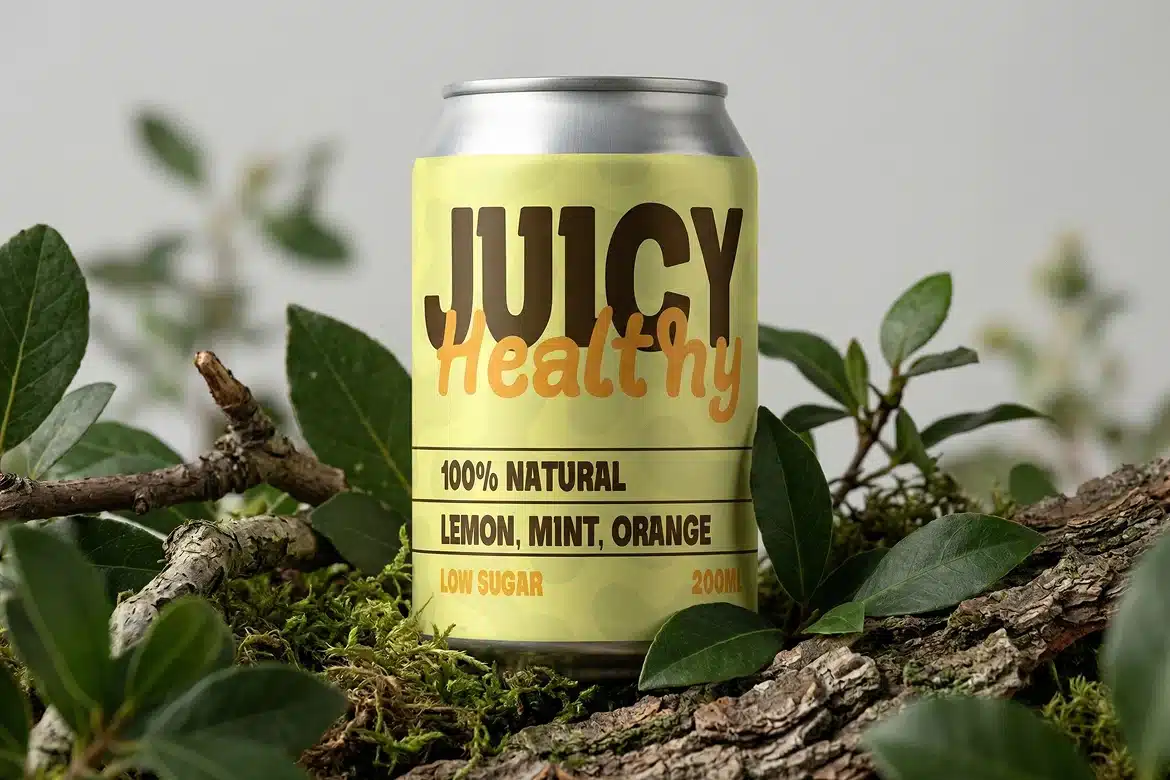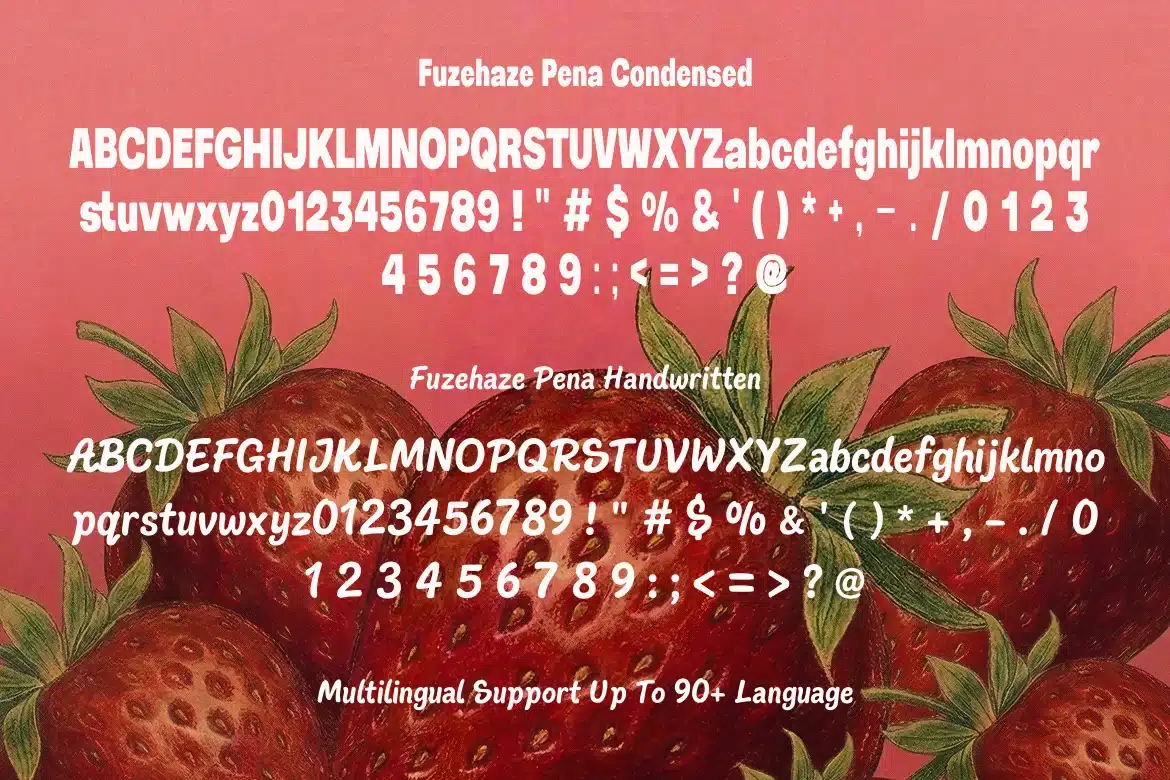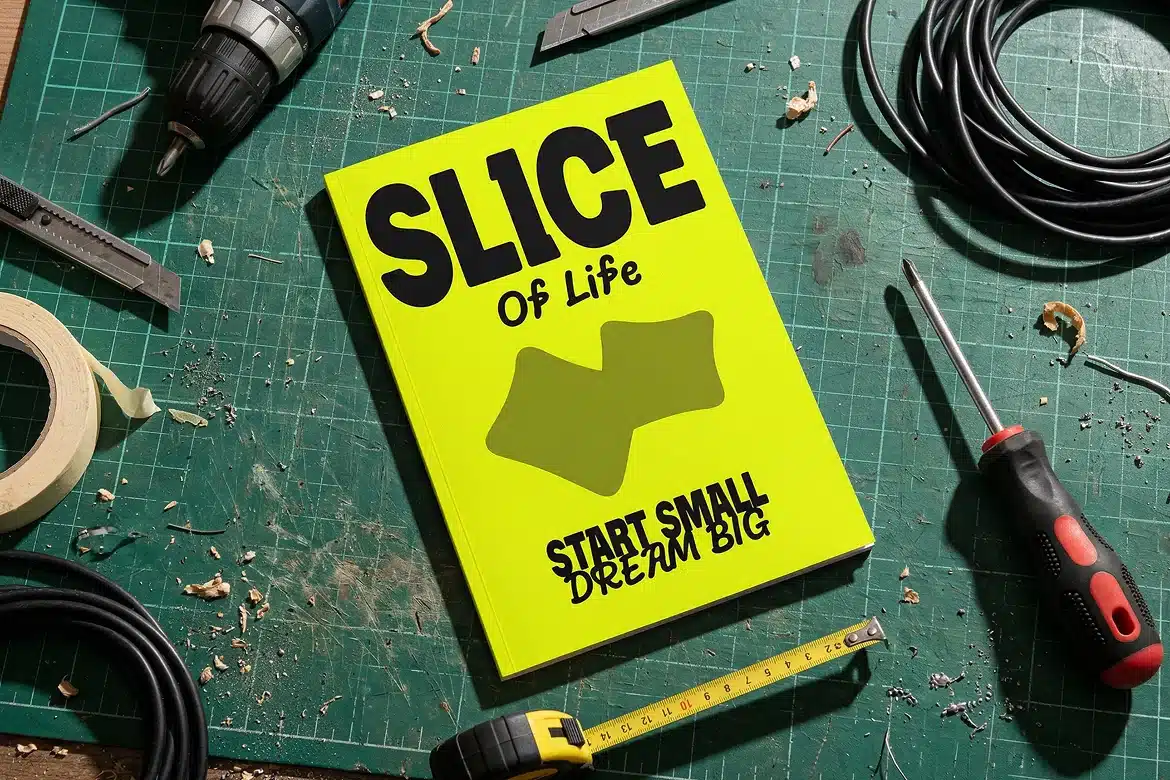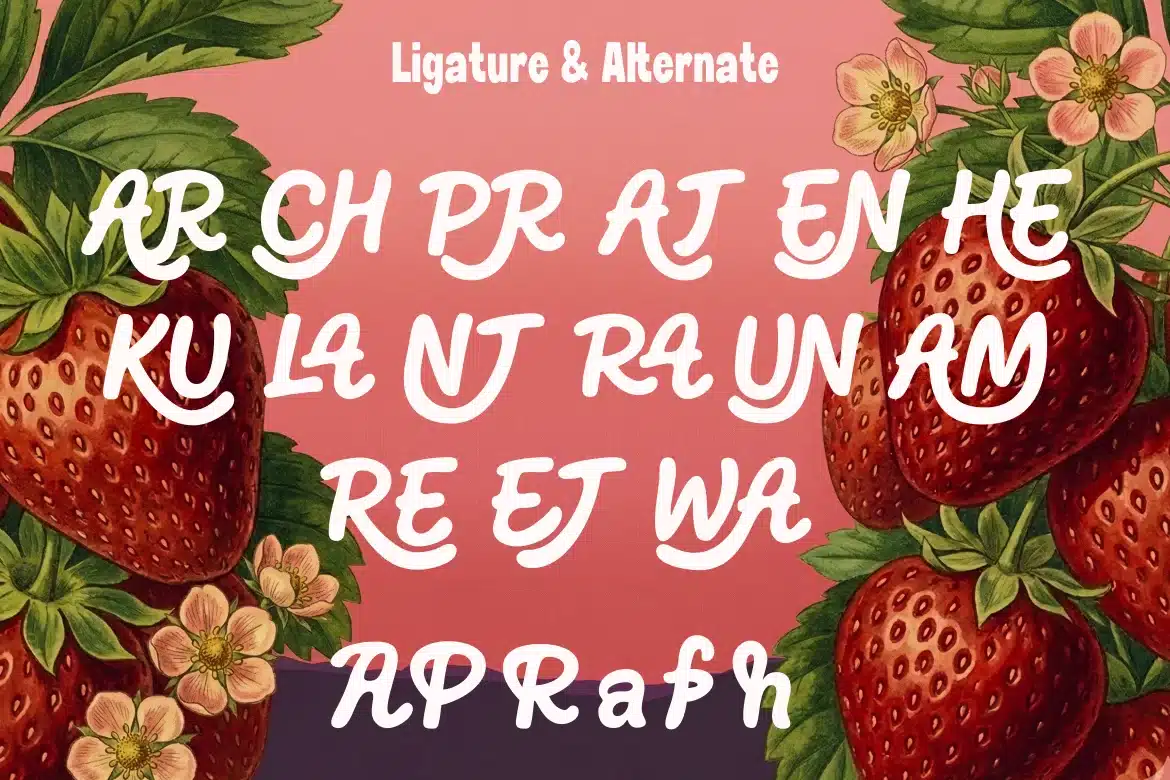
Fusehaze Pena Condensed & Handwritten Font
Fusehaze Pena is a striking duo of condensed display and handwritten script that brings a fresh, artisanal touch to your creative projects. With its bold, solid condensed forms paired with an expressive, flowing script, Fusehaze Pena captures a perfect balance of modern structure and organic charm—perfect for a fun, energetic, and eye-catching aesthetic, and social media graphics.
Designed to be both versatile and full of character, Fusehaze Pena includes a rich set of ligatures and alternates that allow for truly custom typographic layouts. Whether you're working on a playful food & beverage brand or a vibrant digital campaign, this font adapts beautifully to both print and digital projects, providing endless creative possibilities across a global scale with its extensive support for 98 languages.
Add a sense of personality and visual impact to your design with Fusehaze Pena—a font duo that blends the strength of condensed typography with the expressive soul of hand-drawn script.
- Condensed & Handwritten display duo
- Uppercase & lowercase letters
- Numbers (0–9)
- Full set of Ligatures & Alternates
- Extensive multilingual support (98 languages)